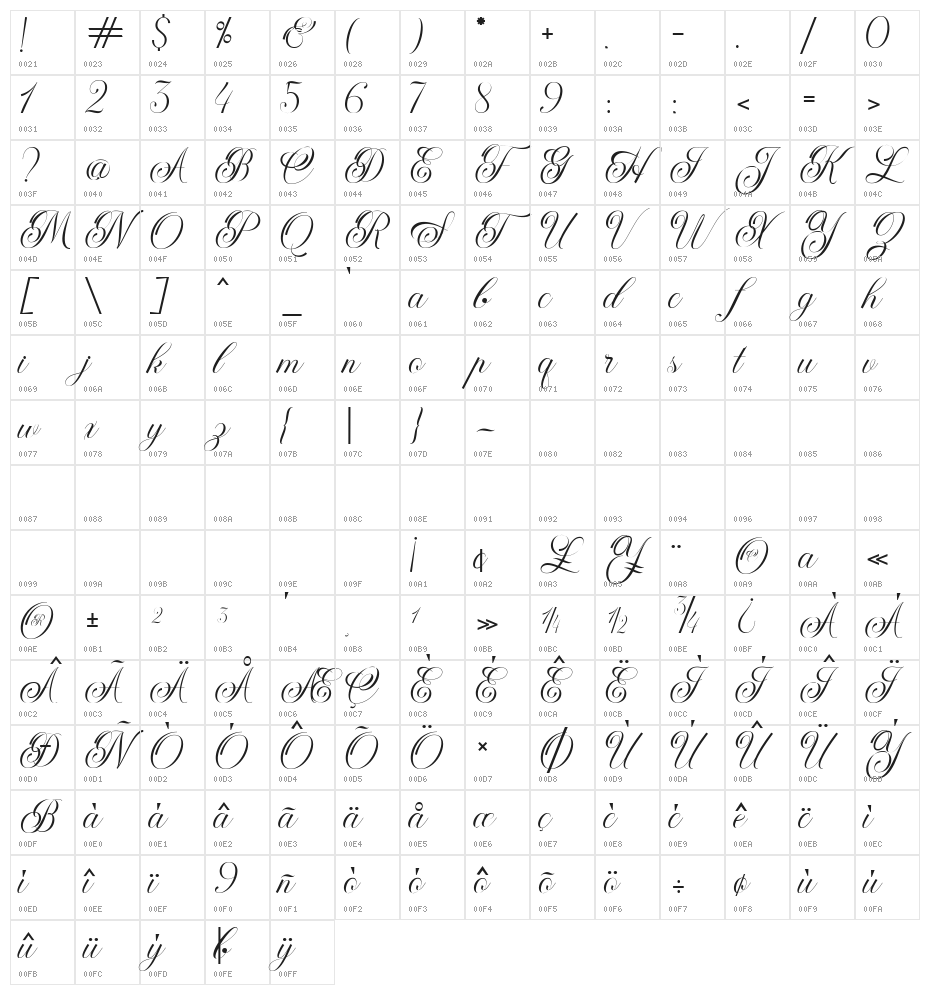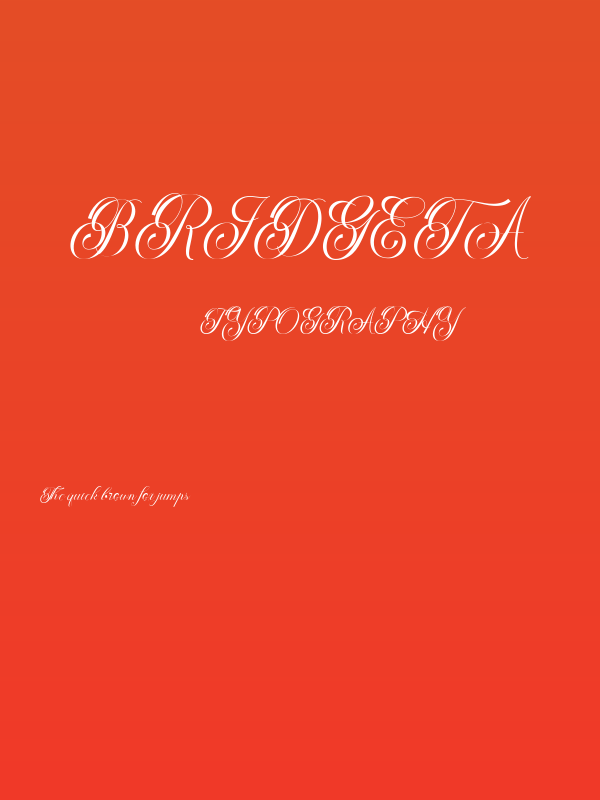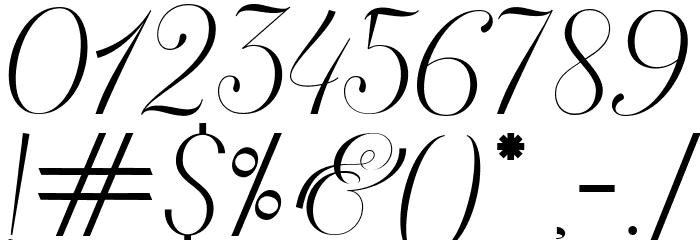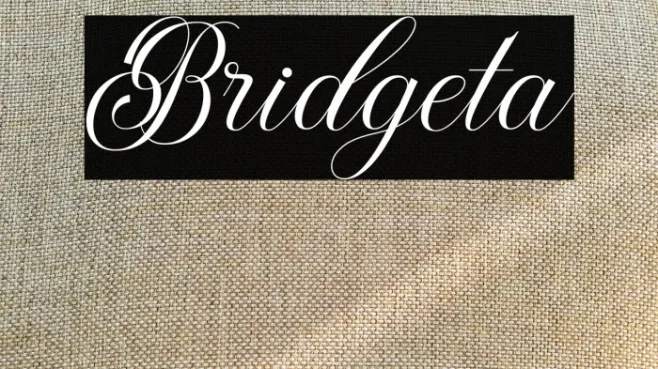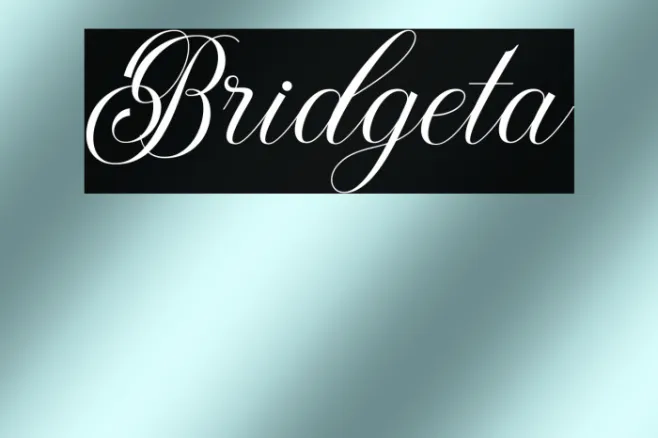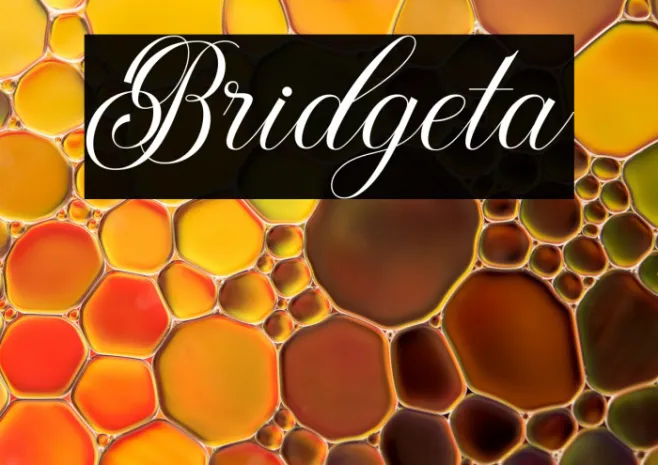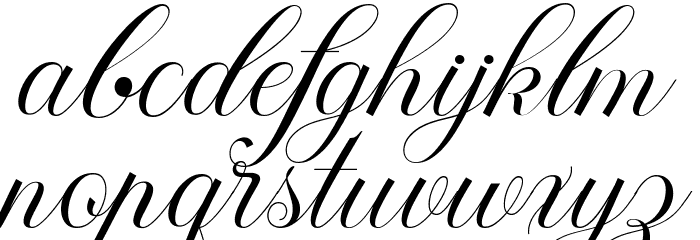
Bridgeta Font
Bridgeta Description
This elegant script font features flowing, interconnected characters with a classic and sophisticated style. The uppercase letters are ornate, with intricate loops and flourishes that add a touch of luxury. The lowercase letters maintain a smooth, cursive flow, making it ideal for formal invitations or branding that requires a touch of elegance. The numerals are consistent with the script style, featuring slight embellishments that maintain readability. Special characters are designed to complement the overall aesthetic, ensuring a cohesive look across all text elements.